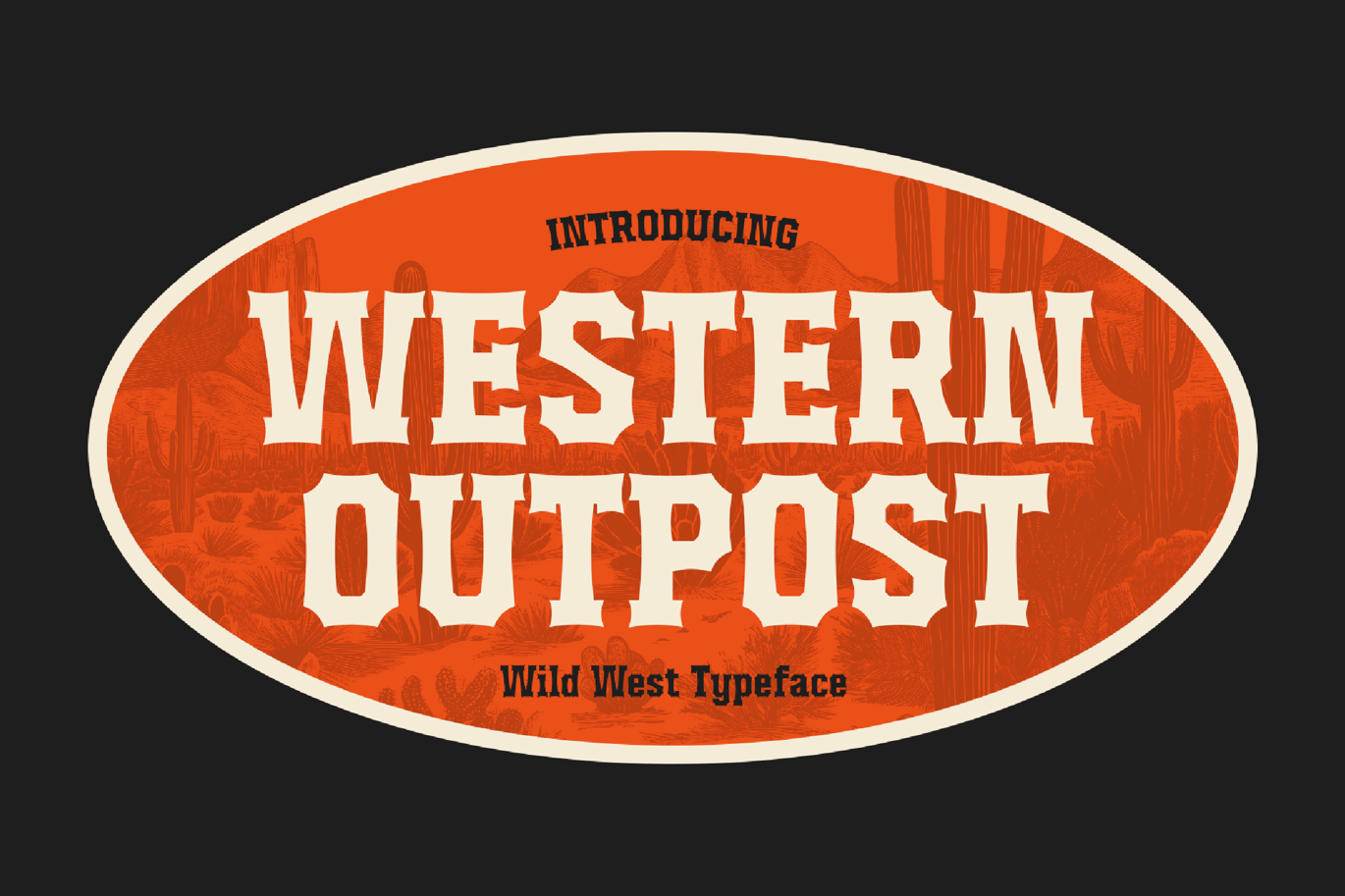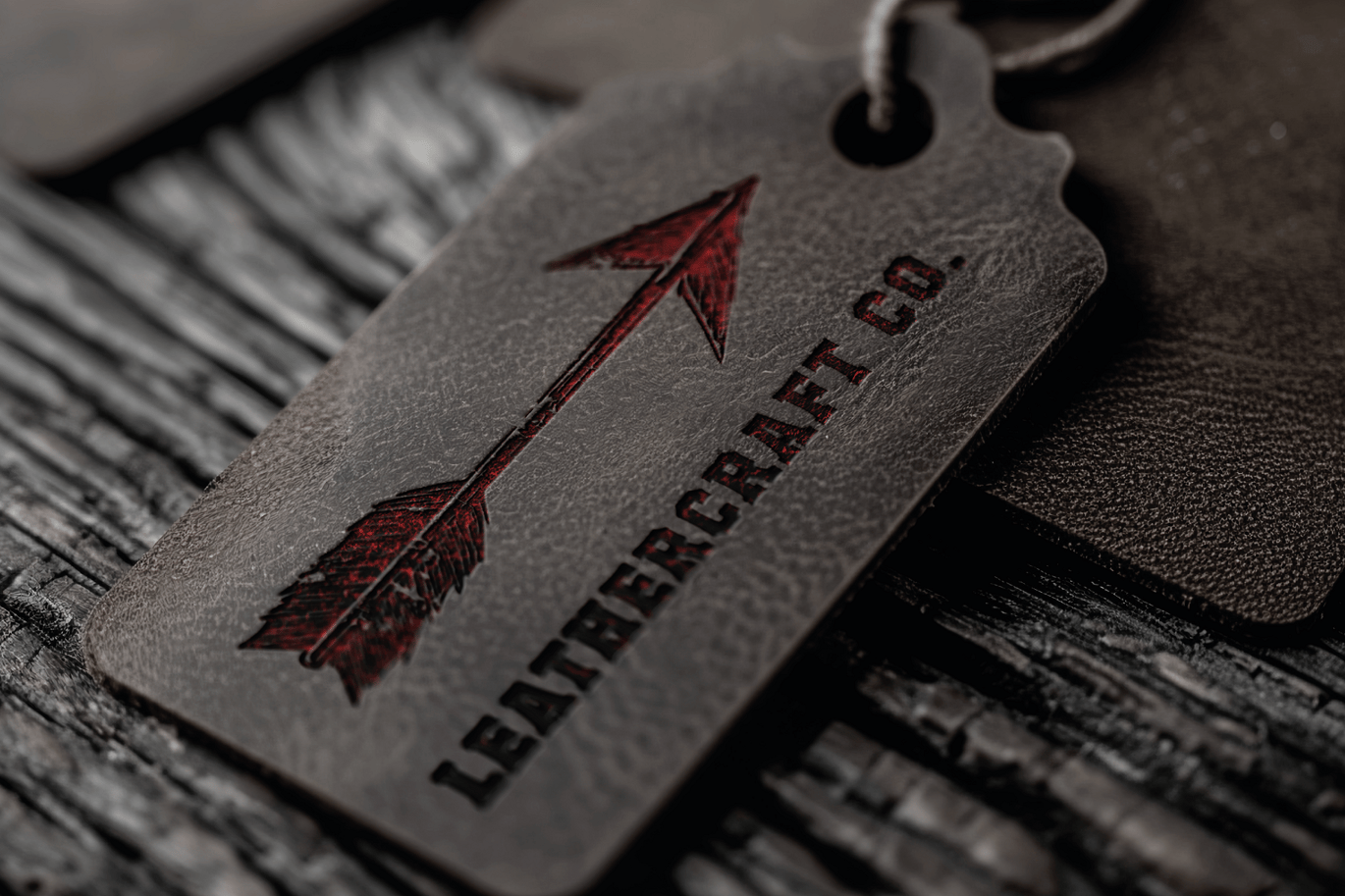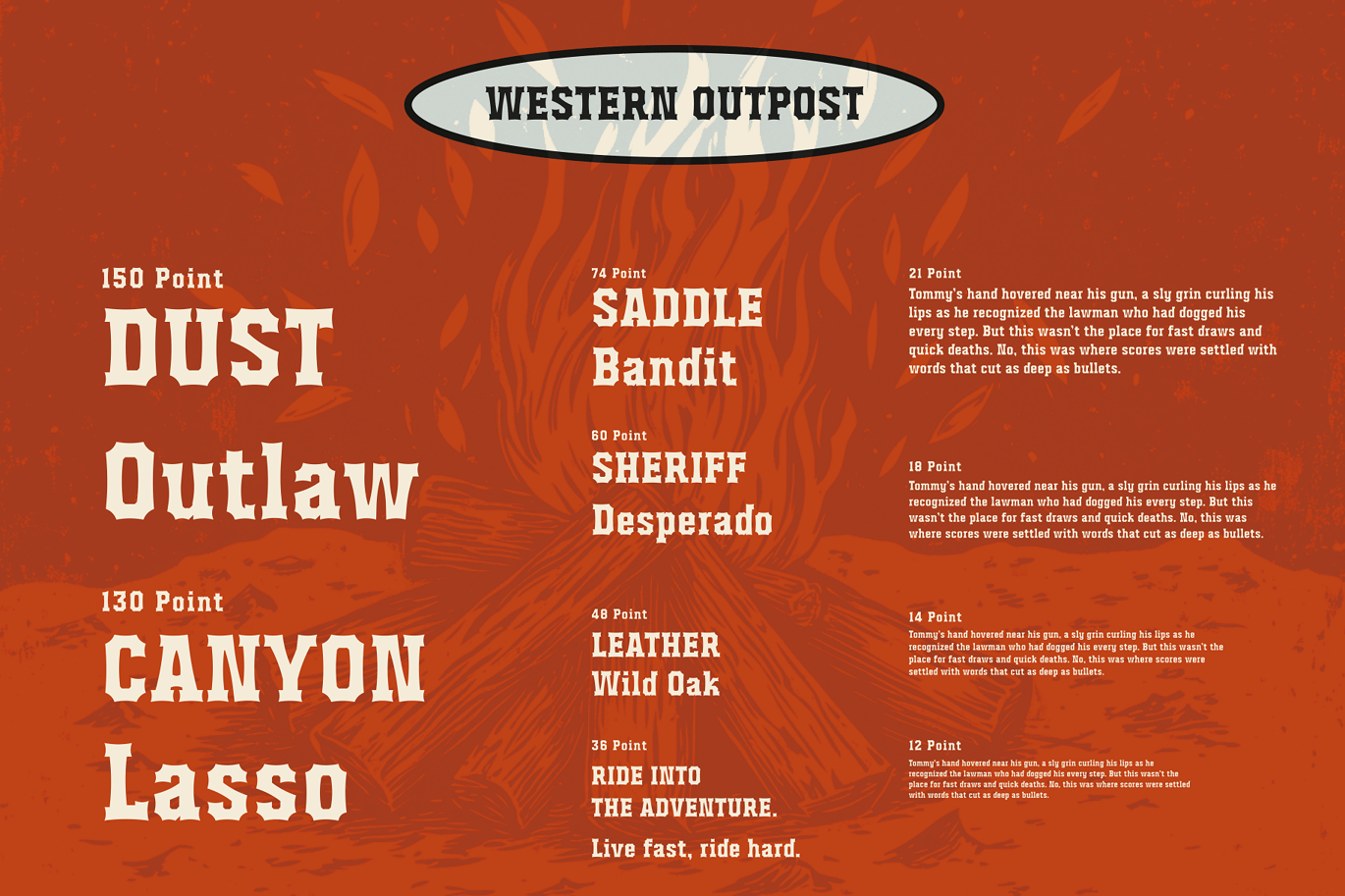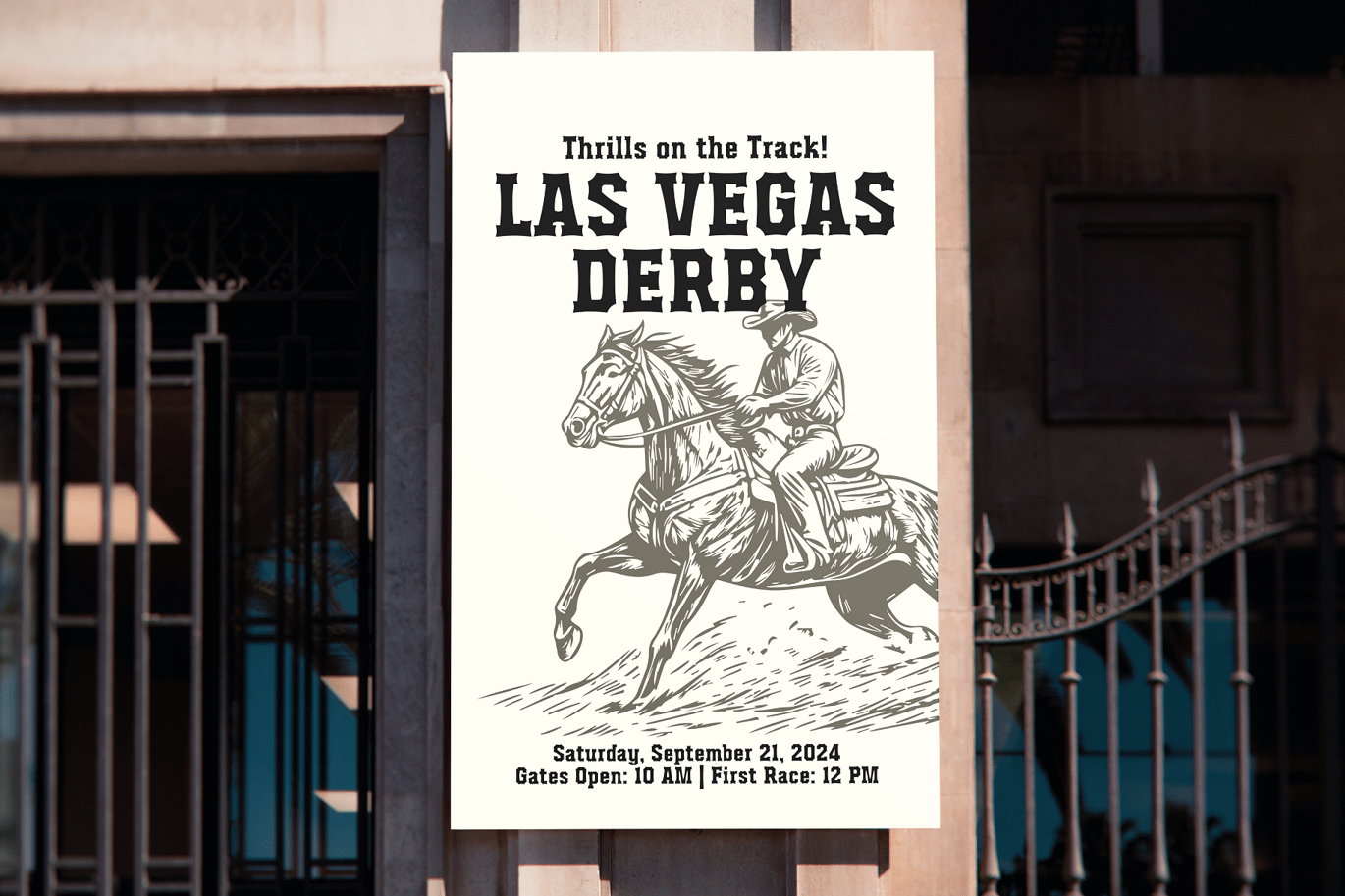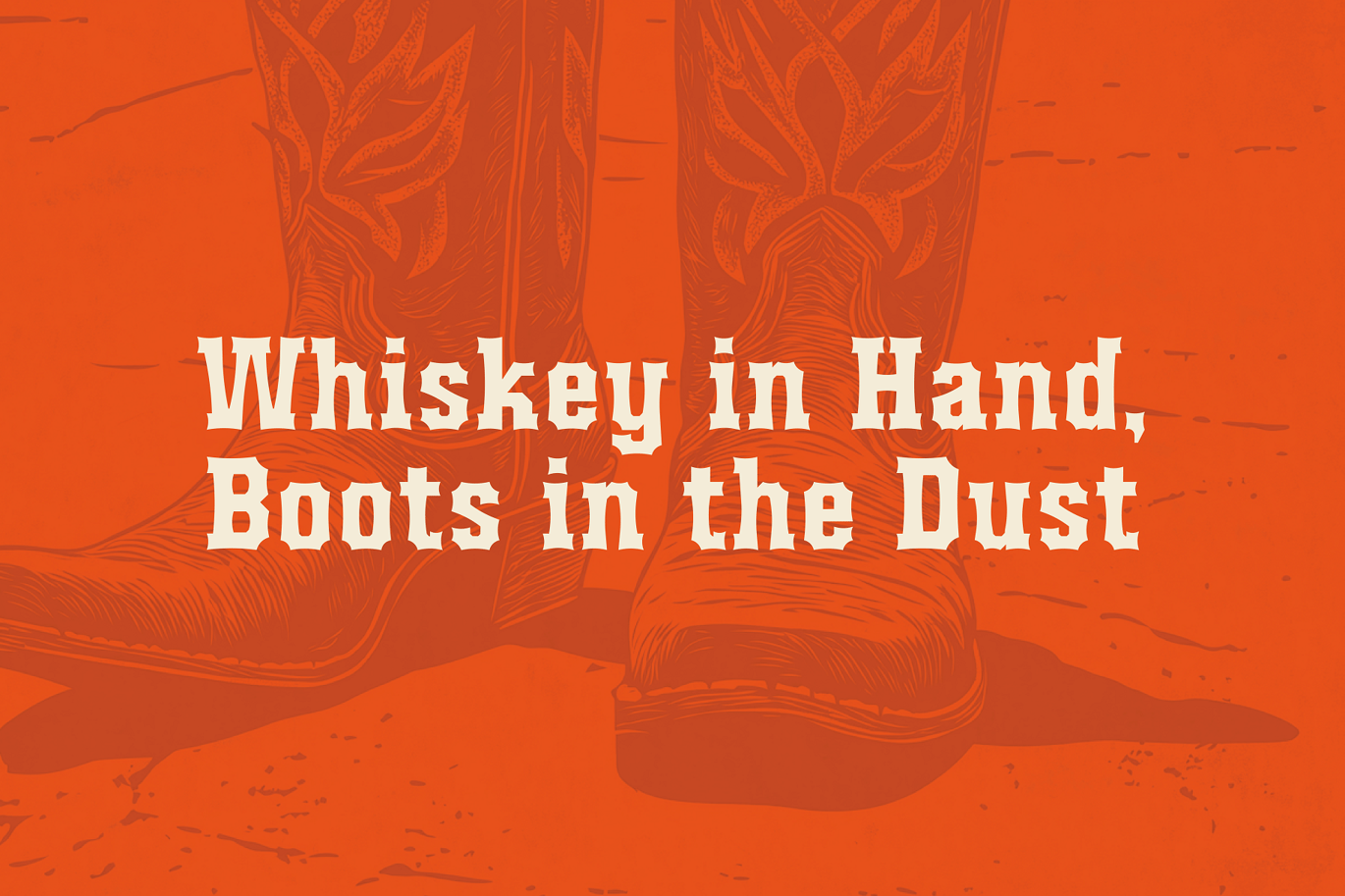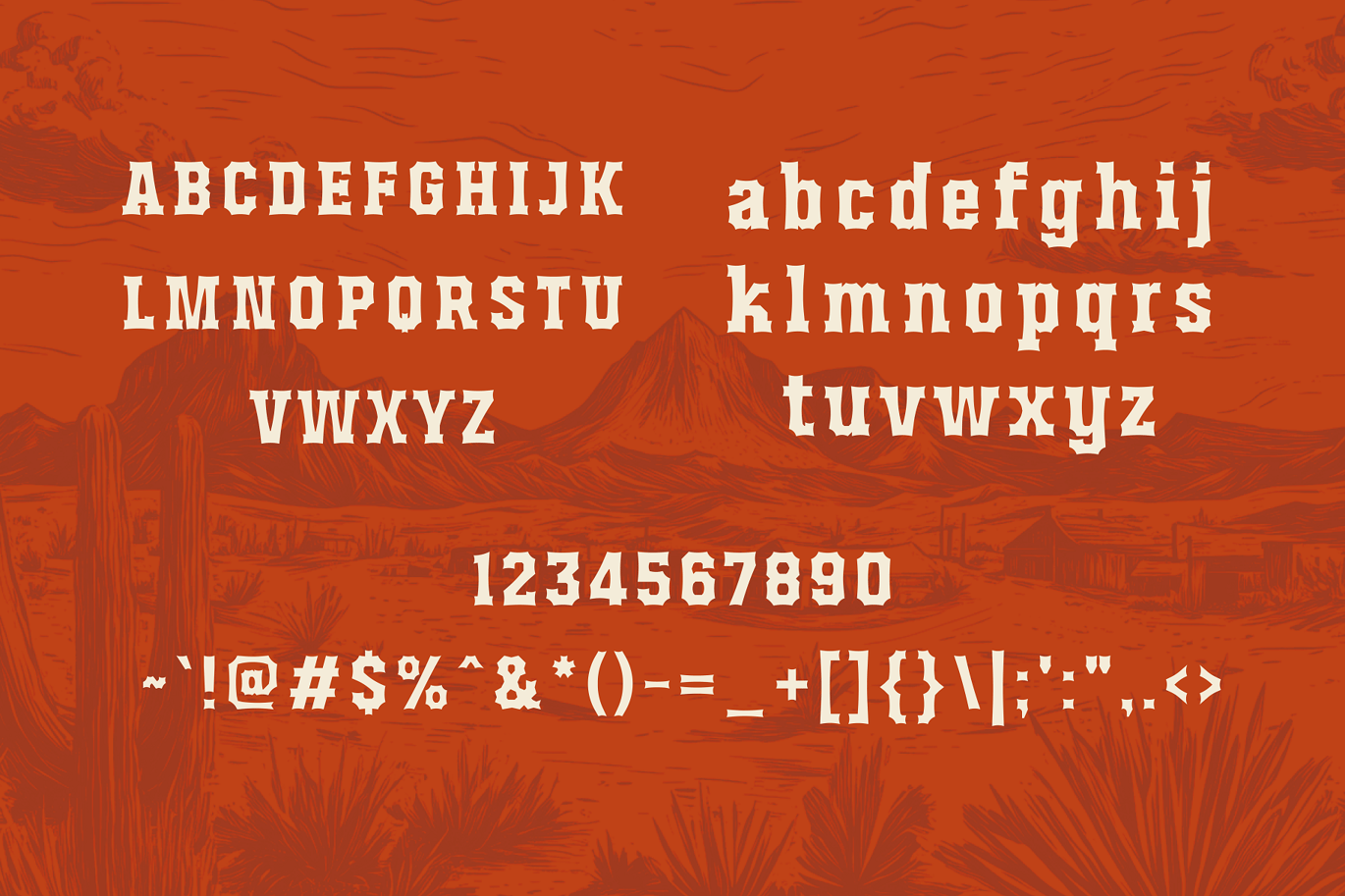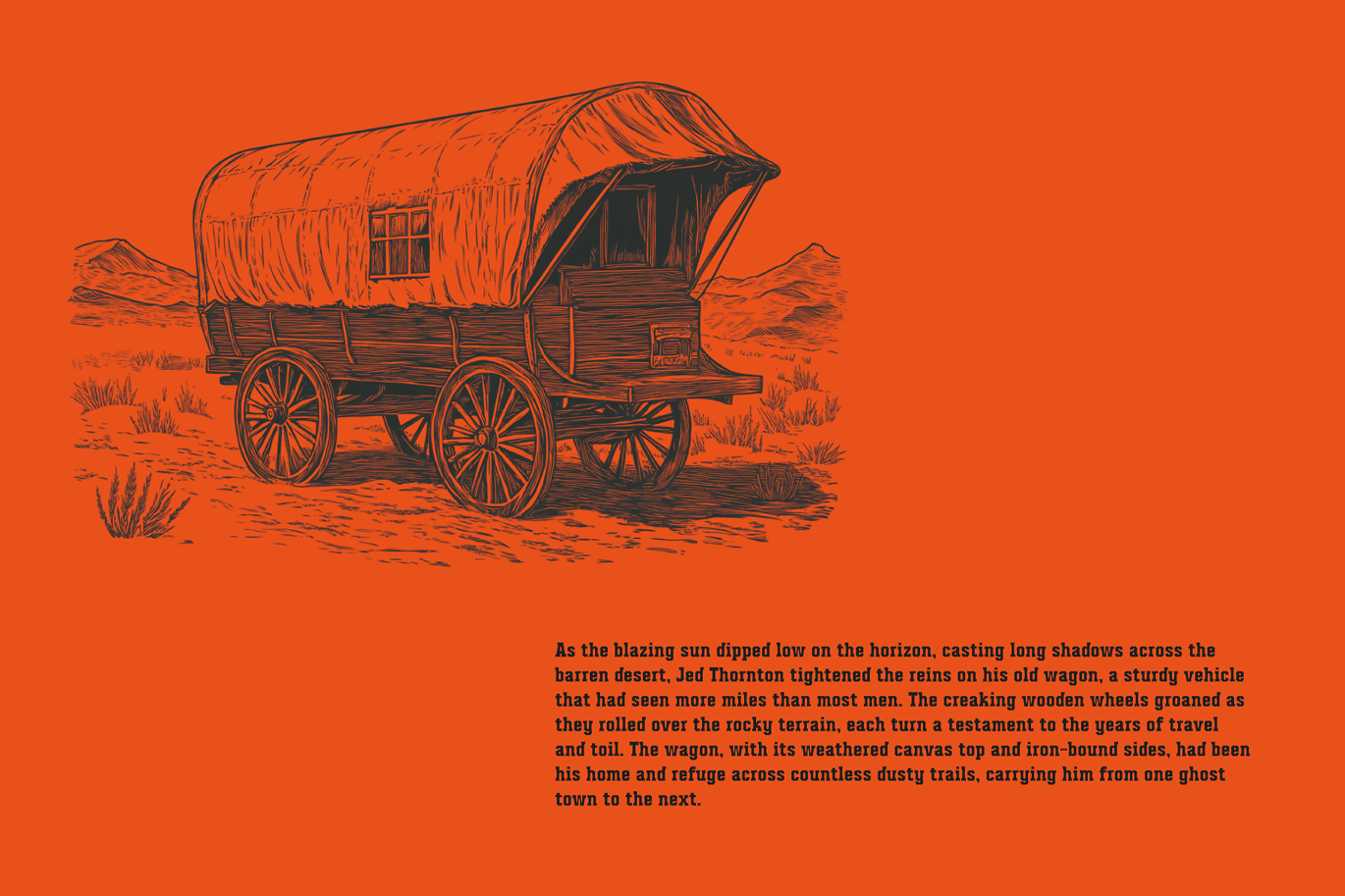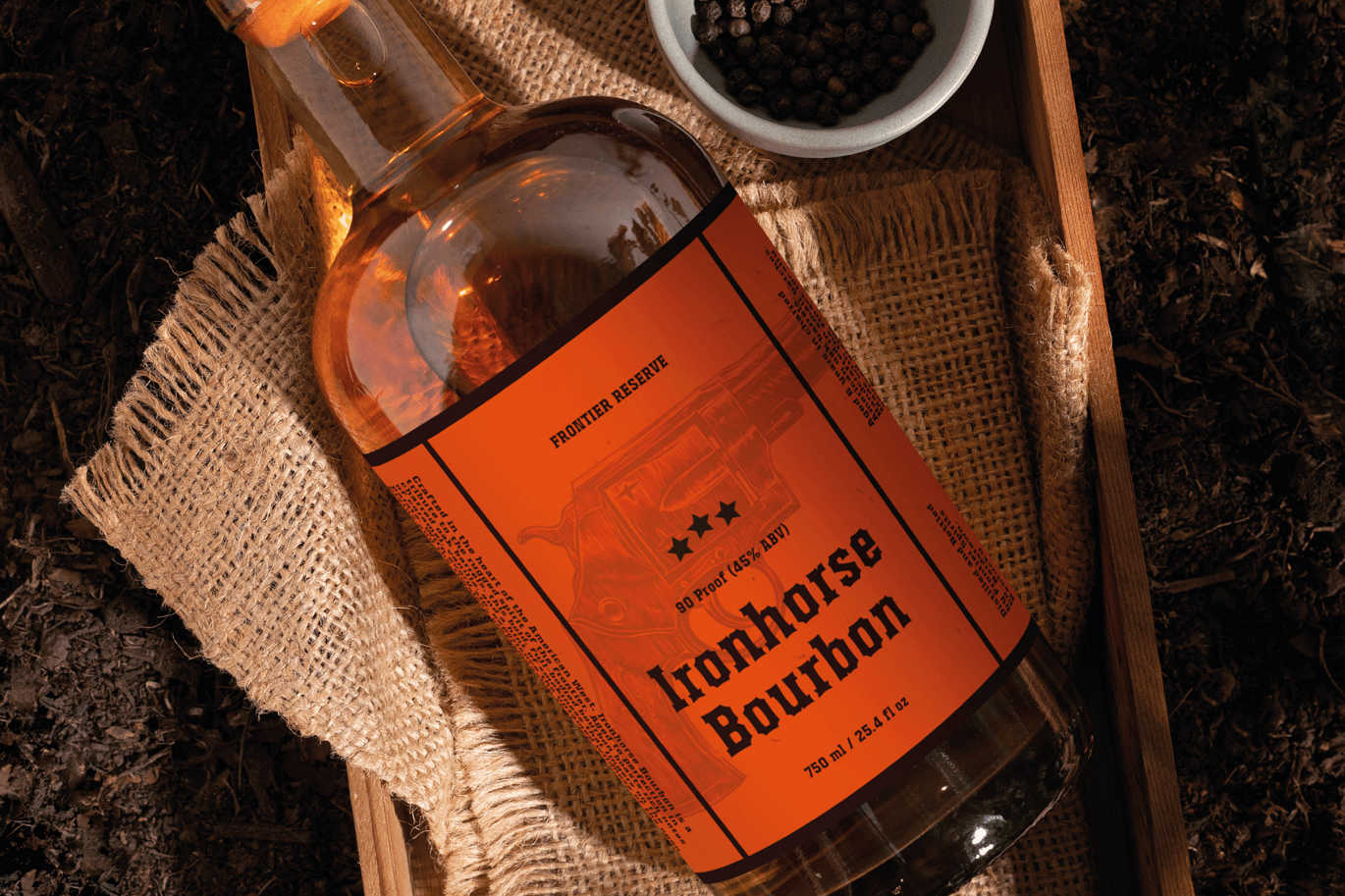
Western Outpost – Wild West Inspired Typeface
Step into the rugged world of the Wild West with Western Outpost, a bold and adventurous typeface that captures the untamed spirit of frontier life. Imagine the clink of spurs, the shuffle of cards, and the creak of saloon doors as you set your designs ablaze with the essence of cowboys, gunslingers, and sheriff badges.
This typeface is a tribute to the legends of the West, with each letter evoking the grit and glory of a time where fortunes were won and lost at the poker table, and justice was served at the end of a revolver.
Perfect for creating show-stopping posters, eye-catching logos, and captivating headlines, Western Outpost brings the wild, untamed spirit of the Old West straight to your projects. Saddle up, and let your creativity ride off into the sunset with Western Outpost!